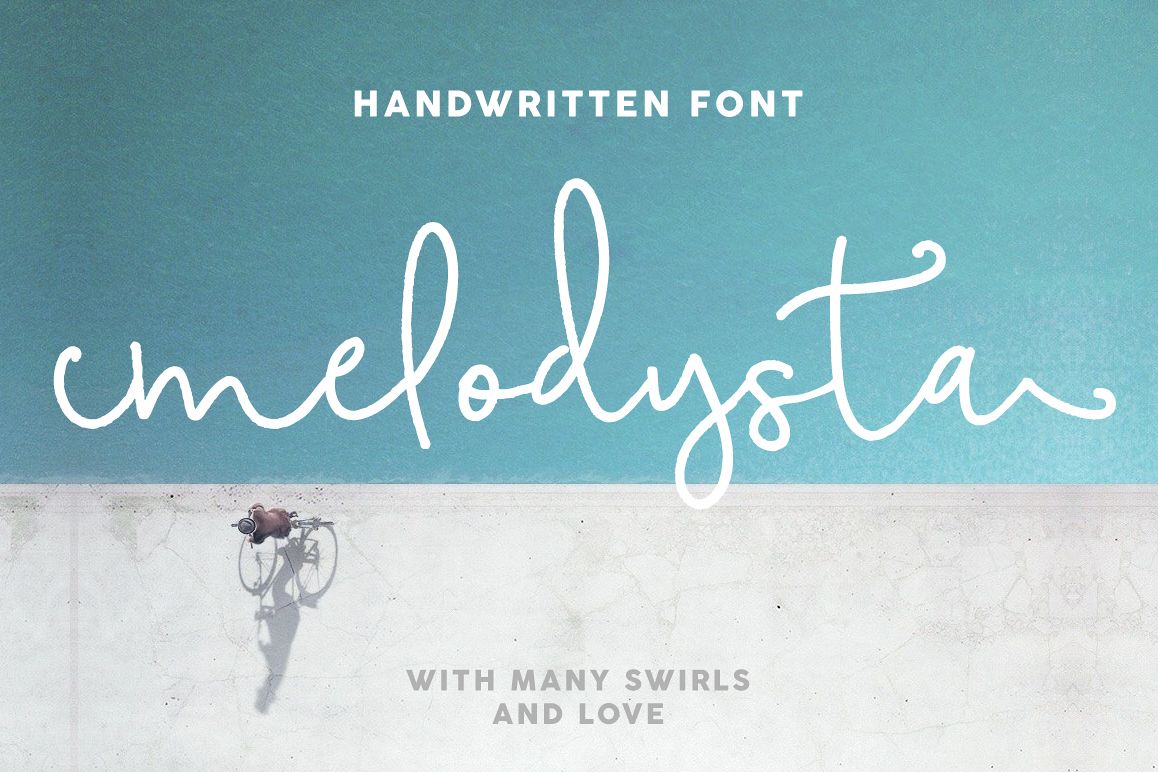
Melodysta Script
It's handwritten brush script with many different swirls and love.
This font is ideal for branding and decorate your any project.This font are perfect for wedding invitation or your blog. Also with their help, you can create a logo or beautiful frame for your home. Or just use for your small business, book covers, stationery, marketing, magazines and more.
Melodysta Script
Melodysta Swirls